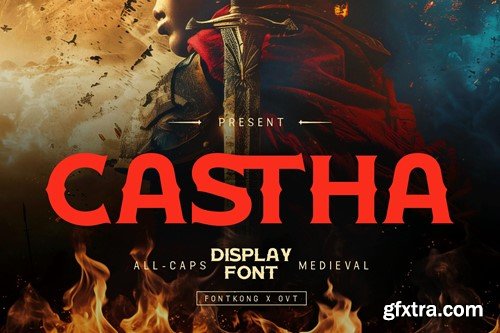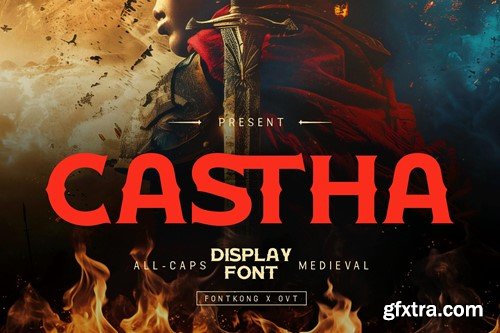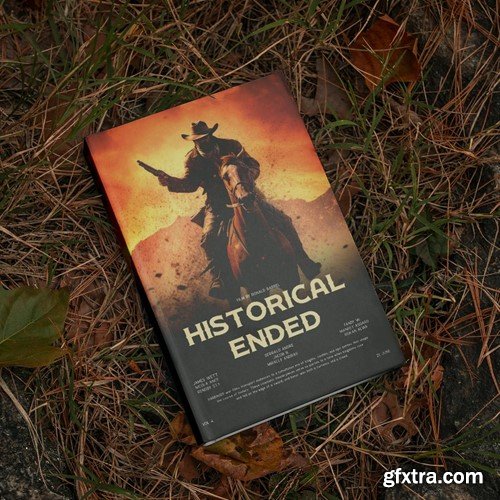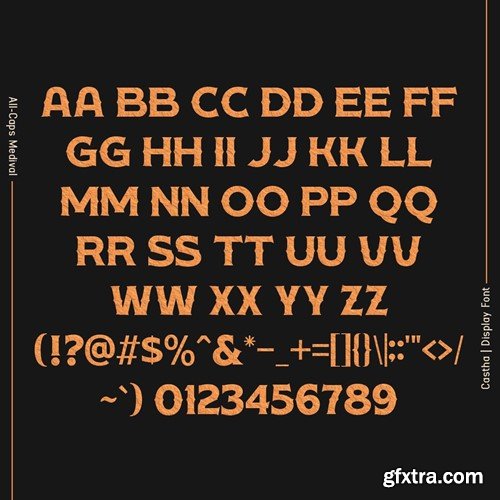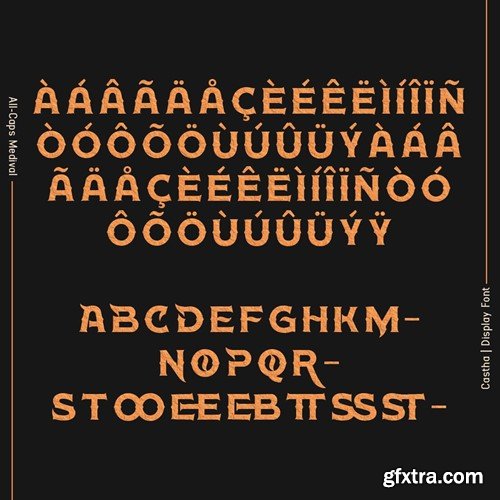
Castha - A Display Font Castha is a striking and versatile display font designed to make a bold statement in your design projects. With its unique letterforms and eye-catching style, Castha is perfect for posters, logos, magazine covers, and branding that demands attention. This font combines modern aesthetics with creative flair, ensuring your work stands out in any context. You will receive the font files in TTF, OTF, and WOFF formats Crafted with precision, Castha features distinctive characters that offer excellent readability and visual impact. Its bold and dynamic design makes it ideal for headlines and display text, providing a powerful presence in both digital and print media. The font's versatility allows it to adapt to various design applications, making it a valuable asset for any designer seeking to create memorable and impactful work. Elevate your design projects with Castha, a font that embodies creativity and modernity. Its unique style and adaptability make it an essential addition to any designer's toolkit. Make a bold statement with Castha and experience the power of innovative typography.